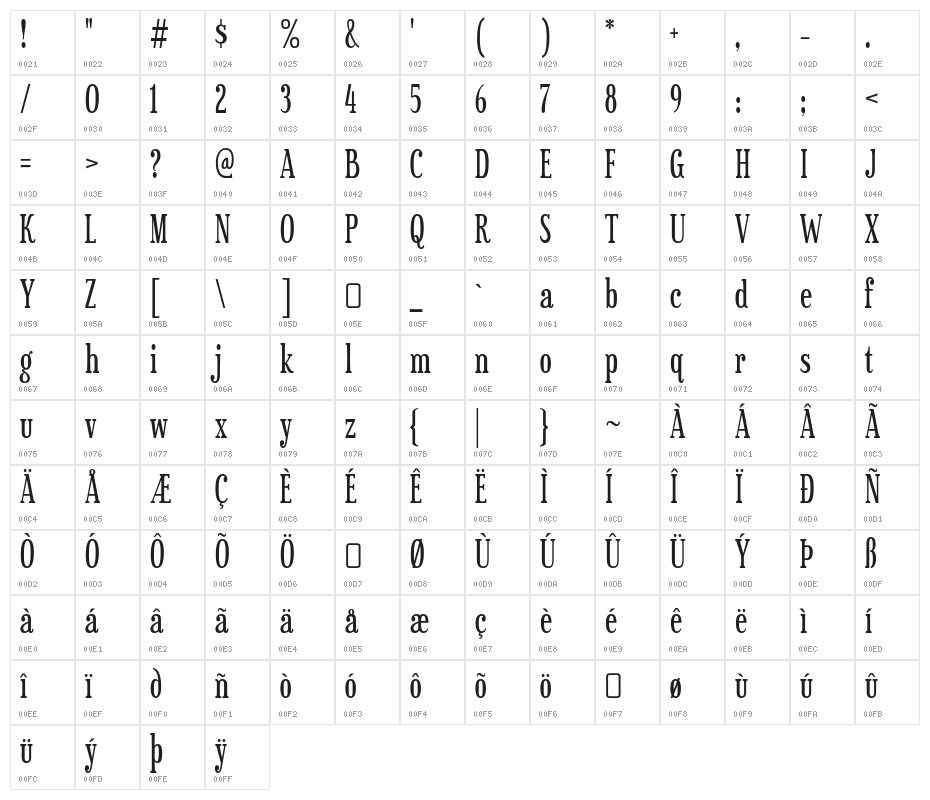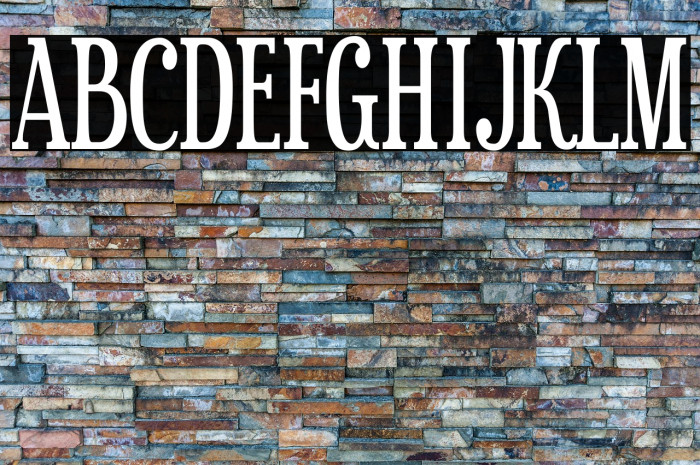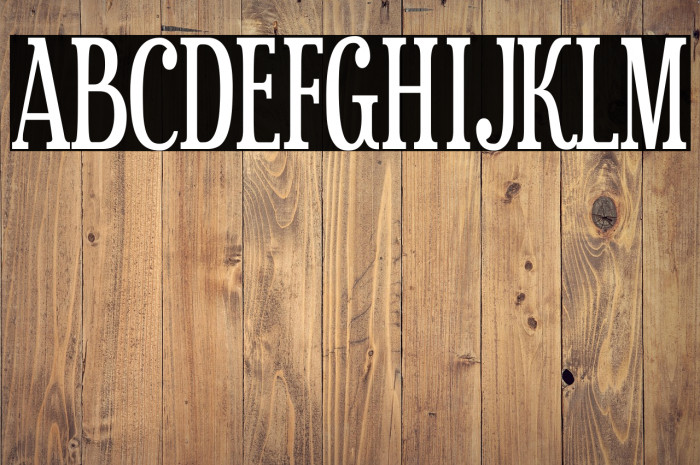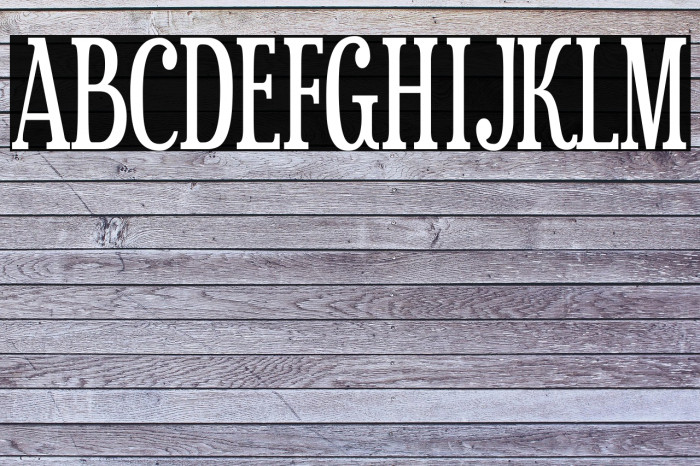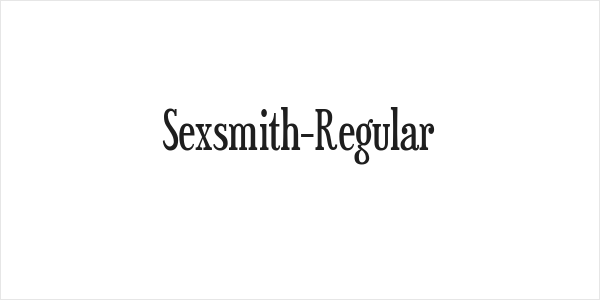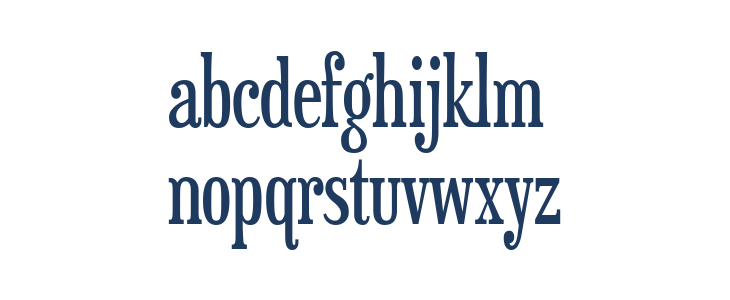
Sexsmith-Regular Font
Sexsmith-Regular Description
This font exhibits a classic serif style with a strong presence and elegant curves. The uppercase letters are tall and commanding, while the lowercase letters maintain a consistent flow, offering a harmonious balance. The numerals are clear and distinct, making them easily readable. Special characters are well-defined, adding versatility to the font's usage. The overall design is reminiscent of traditional typography, yet it maintains a modern appeal, suitable for a variety of applications.
| Proposed Projects | Ideal for editorial design, book covers, branding, and formal invitations. |